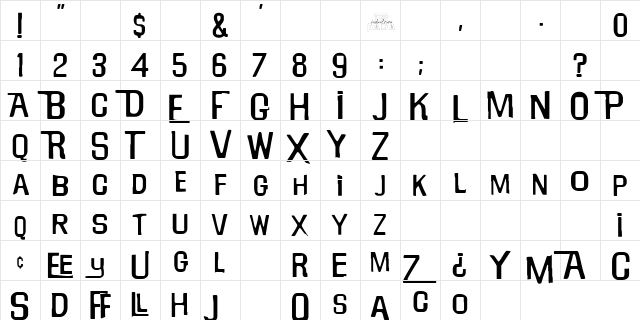
WillRobinson Regular
Design Context for WillRobinson Typeface
WillRobinson is a composed and adaptable typeface that performs quietly and consistently across a wide range of design contexts.